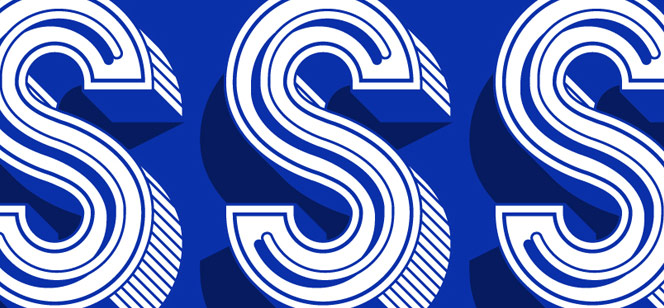
Peep Show font
Neon lights – bright, shining, glamorous! They have been with us for the past decades, capturing people’s imagination, fascinating them and helping them make easy decisions about things they like to do or buy. And this was their beauty that inspired New York design studio Vault49 to create Peep Show font – a multi-layered modern typeface that incorporates the saturated look and aesthetic impact of the neon and diner signage. Furthermore, by acquiring Peep Show, designers get a very flexible typeface that can be broken down in several versions in order to fulfill different needs. The extras you get include separate drop shadow, fill color and outlines as well as complimentary illustrator file that contains all characters. All in all you get 3 fonts at the price of just one!
We believe that Peep Show’s appearance and features make it perfect for creating logos, print adverts, usage in Applications and eBooks, gaming etc.